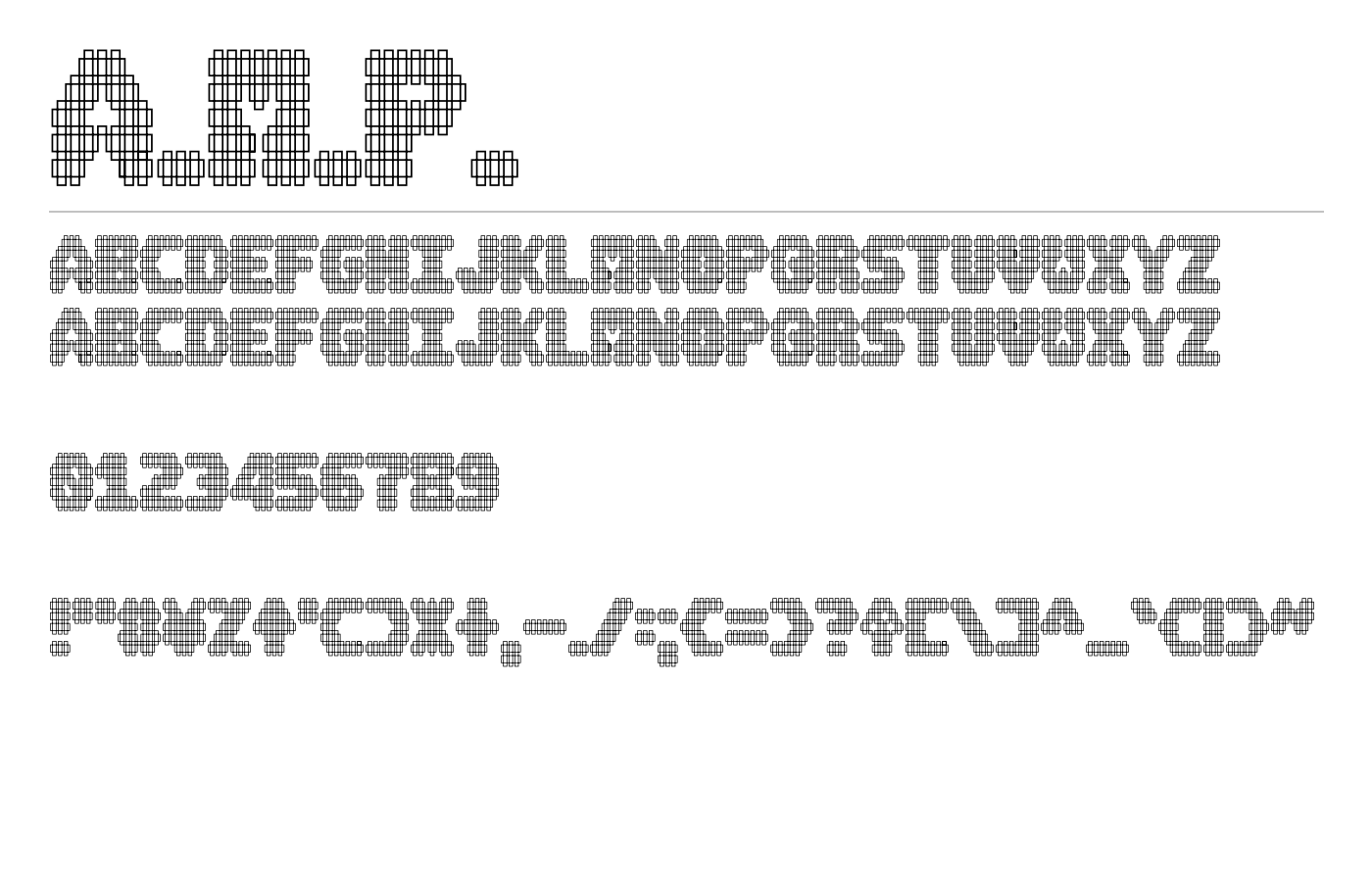
A.M.P. Font is a bold, geometric sans serif typeface with a distinctive pixelated, grid-like design that gives it a modern, tech-inspired feel. Its consistent stroke weight and blocky letterforms create a futuristic and digital aesthetic, making it ideal for headlines, logos, and graphic projects that aim to convey innovation, technology, or retro video game vibes. This font stands out in contexts where a striking, unconventional style is desired, especially in digital and tech branding or creative posters.
A.M.P. Font